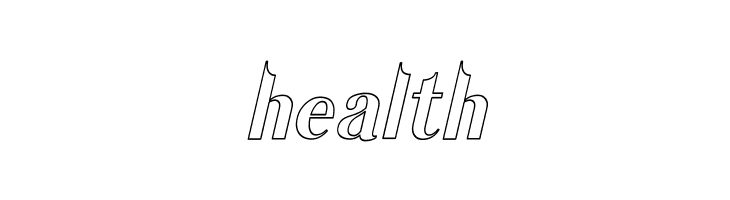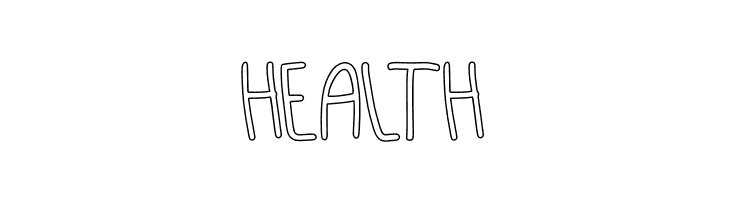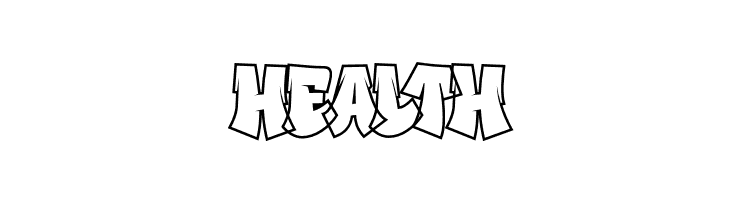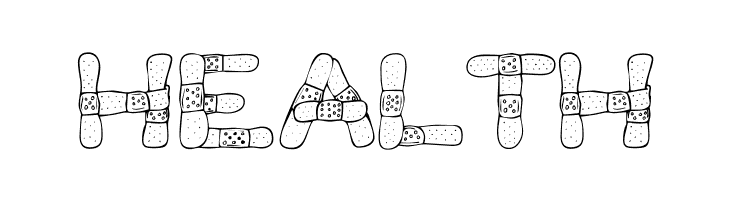
A playful and modern outline font with a hand-drawn, friendly appearance.
An elegant serif outline font with modern, elongated letterforms.
A segmented, geometric outline font with a modern and playful style.
A playful, hand-drawn outline font with a whimsical and informal style.
An elegant, italic outline font with a modern and sophisticated style.
A modern outline font with clean, structured characters and consistent stroke width.
A bold, graffiti-style font with dynamic, angular letterforms and thick outlines.
An outline font with a playful, artistic style and decorative appeal.
A modern, decorative outline font with playful and structured forms.